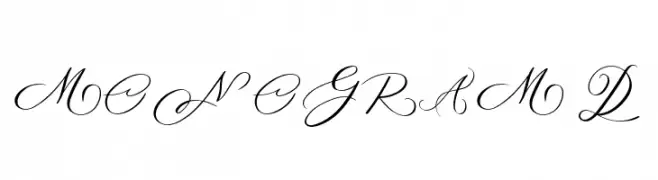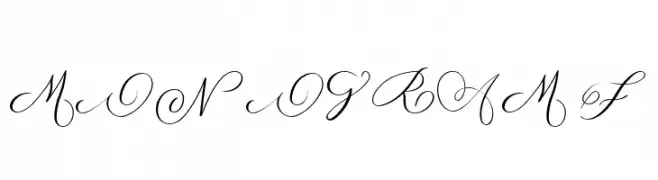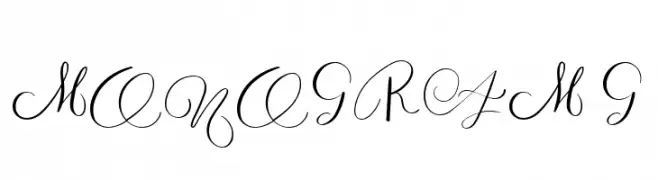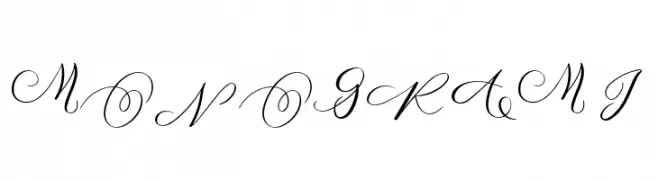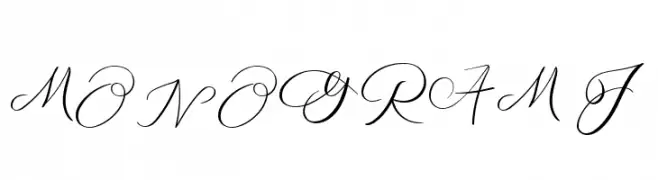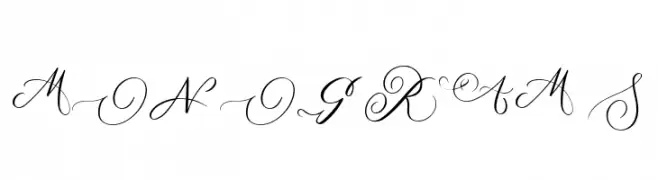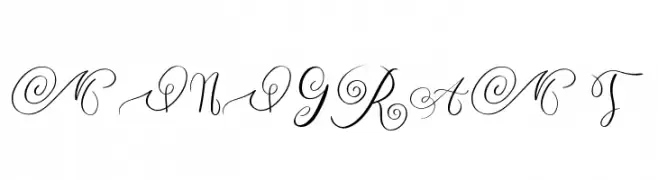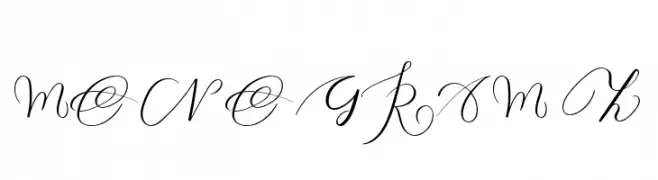
An elegant script font with intricate, flowing letterforms and elaborate swirls.
An ornate script font with intricate swashes and curls, perfect for decorative uses.
An elegant script font with intricate, flowing lines and a sophisticated style.
An elegant script font with intricate, flowing lines and decorative flourishes.
An ornate and decorative font with intricate swirls, ideal for monograms and formal designs.
An elegant script font with intricate, flowing lines and decorative swirls.
An elegant script font with intricate, flowing lines and decorative flourishes.
An elegant script font with intricate swashes and flourishes, perfect for decorative use.
An elegant and sophisticated script font with intricate swirls and loops.
An elegant script font with flowing, ornate letters and intricate flourishes.